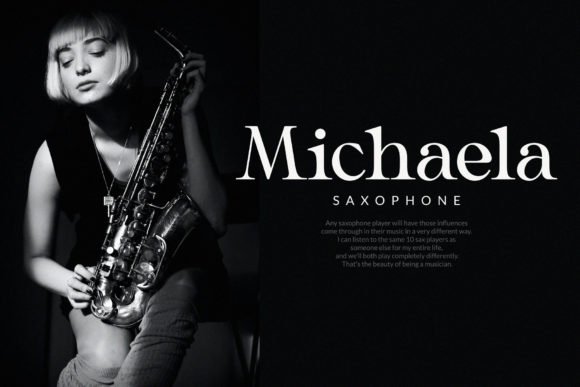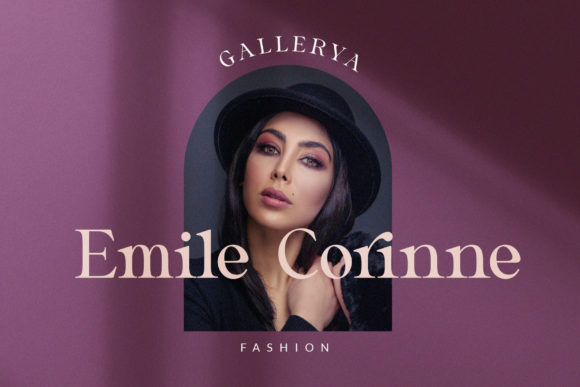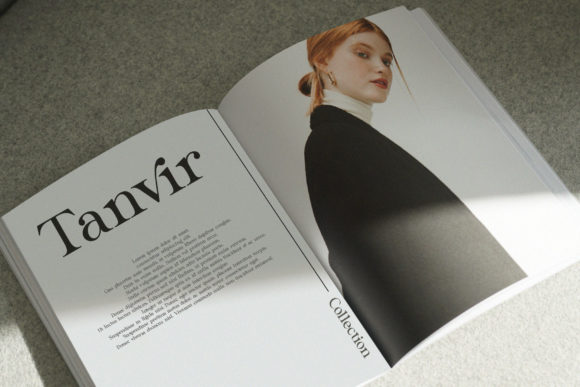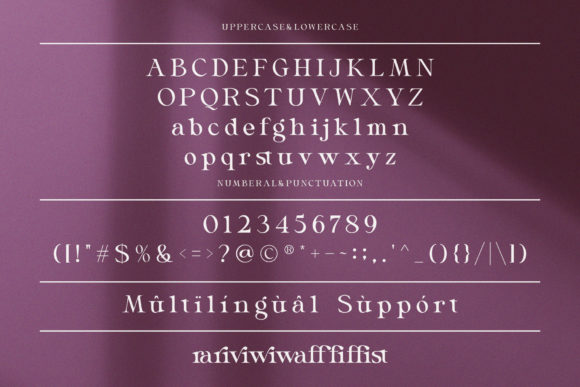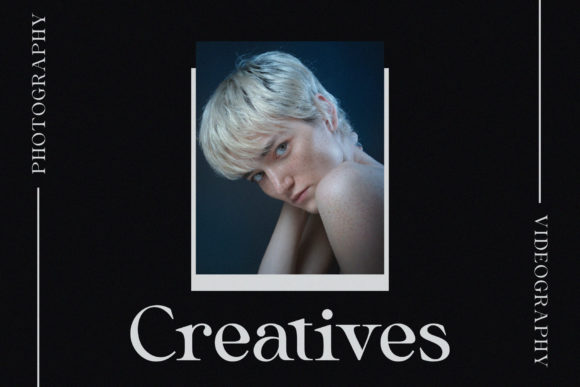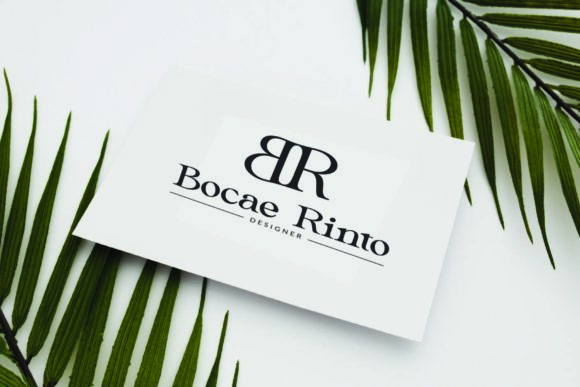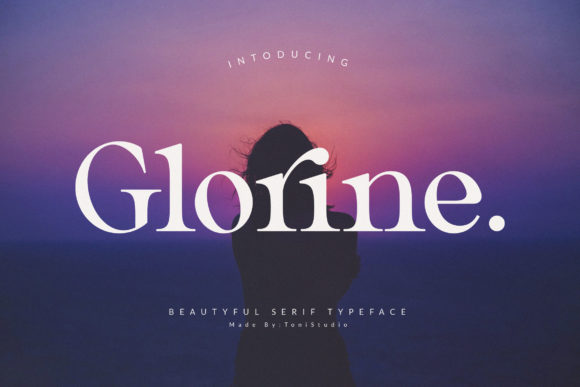
Glorine Font: Elevate Your Designs with Elegance and Sophistication
In the world of typography, fonts play a crucial role in conveying the tone and personality of a design. For designers and crafters seeking to add a touch of elegance and sophistication to their creations, the Glorine font is an excellent choice. This stunning serif font is designed to make a lasting impression, and in this article, we’ll explore what makes Glorine a standout addition to any design project.
The Essence of Glorine Font
Glorine is an elegant and distinct serif font that exudes refinement and poise. Its simple yet robust design ensures that it can be used in a wide range of applications, from luxury branding and advertising to packaging and digital media. The font’s classic serif structure provides a sense of tradition and reliability, while its unique flair adds a modern twist that sets it apart from more conventional typefaces.
Key Features of Glorine Font
- Elegant Serif Design: Glorine’s serif design is both elegant and eye-catching, making it perfect for projects that require a touch of sophistication.
- Simple yet Impactful: Despite its simplicity, Glorine has a strong visual effect that instantly elevates the aesthetic appeal of any design.
- Versatility: This font is highly versatile and can be used in various design projects, including logos, headings, and body text.
- Readability: Glorine offers excellent readability, making it suitable for both digital and print media.
Why Choose Glorine Font?
For designers and crafters looking to create visually stunning and impactful designs, Glorine is an excellent choice. Here are a few reasons why:
- Unique Aesthetic: Glorine’s distinctive design ensures that your creations stand out from the crowd, capturing the attention of your audience.
- Timeless Appeal: The font’s classic design ensures that it remains relevant and stylish for years to come, avoiding the fleeting nature of trendy typefaces.
- Easy to Pair: Glorine can be easily paired with other fonts to create harmonious and balanced typography, offering flexibility in design.
Using Glorine Font in Your Designs
Incorporating Glorine into your design projects is straightforward. Here are some tips to maximize its potential:
- Logos and Branding: Use Glorine to create elegant and memorable logos that convey luxury and sophistication.
- Headings and Titles: Its strong visual impact makes Glorine perfect for headings and titles, adding emphasis and style to your content.
- Digital Media: Glorine’s readability ensures that it performs well in digital media, including websites, social media posts, and digital advertisements.
- Print Media: For print projects such as brochures, posters, and packaging, Glorine adds a touch of elegance and refinement.
Glorine font is a powerful tool for designers and crafters seeking to add elegance and sophistication to their creations. Its unique blend of classic serif design and modern flair makes it a versatile and impactful choice for a wide range of design projects. By incorporating Glorine into your typography arsenal, you can ensure that your designs stand out and leave a lasting impression on your audience.
- What type of projects is Glorine best suited for? Glorine is suitable for a variety of projects, including logos, branding, headings, titles, and any design that requires an elegant and sophisticated look.
- Is Glorine easy to read? Yes, Glorine offers excellent readability, making it suitable for both digital and print media.
- Can Glorine be used for body text? While Glorine is highly legible, it’s primarily designed for headings and titles. For body text, consider pairing it with a more straightforward font for optimal readability.